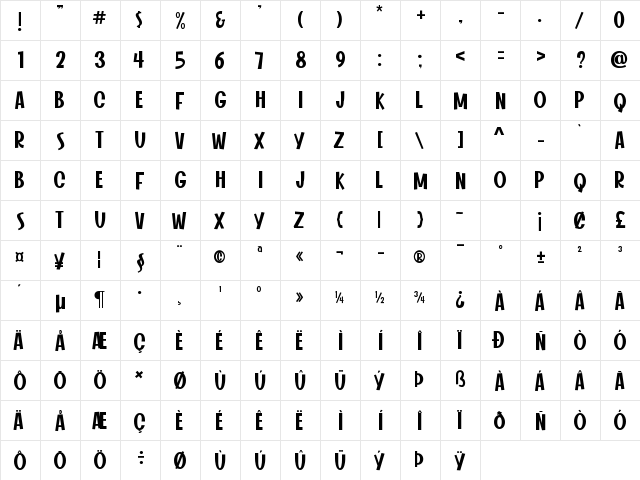
Summer Sunshine Regular
| Foundry | Figuree Studio |
| Designer | Toni Dzulham |
Design Context for Summer Sunshine Typeface
Summer Sunshine is a composed and adaptable typeface that performs quietly and consistently across a wide range of design contexts.